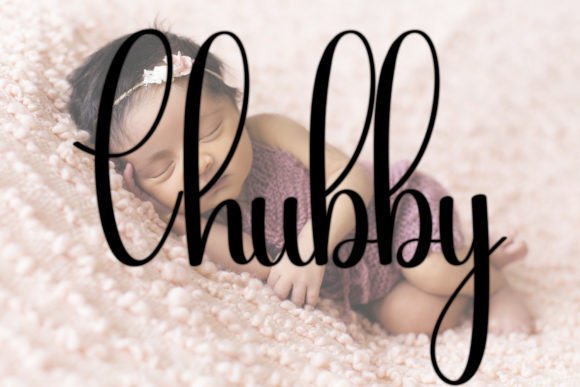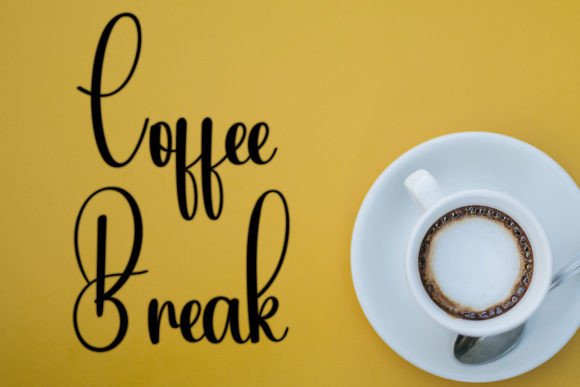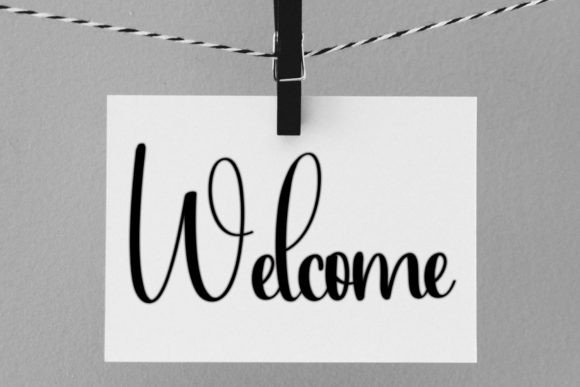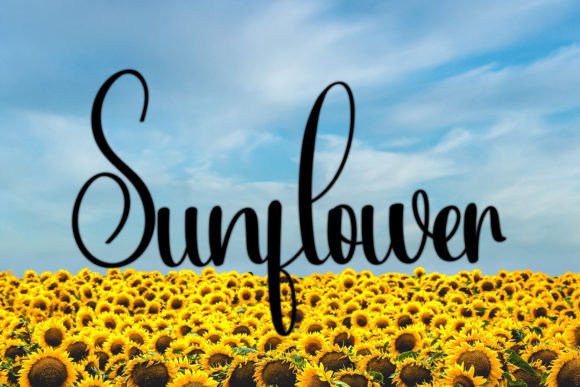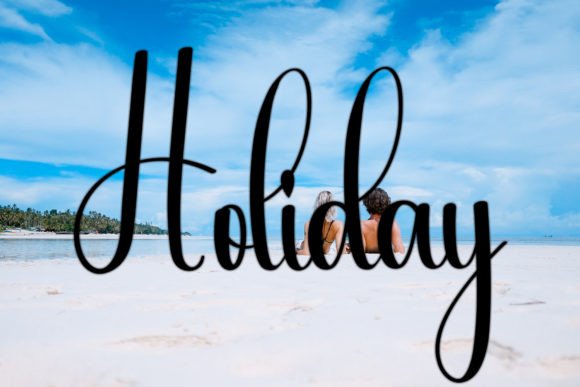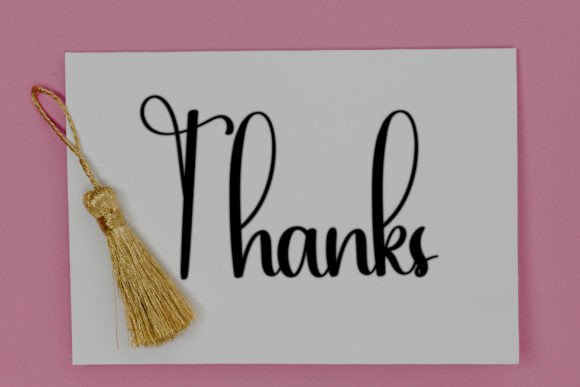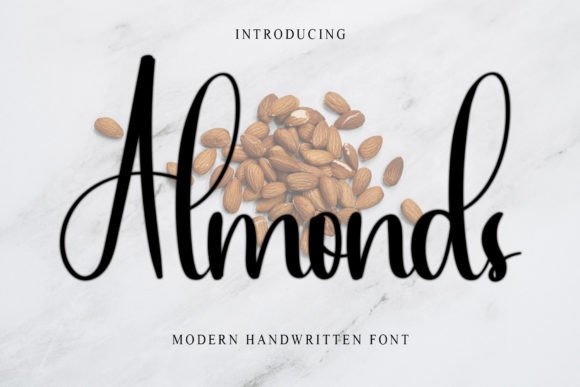
Introducing Almonds Font: Elevate Your Designs with Elegance
Are you on the hunt for a font that exudes sophistication and charm? Look no further than Almonds Font, a stunning handwritten typeface that is sure to capture your heart. With its elegant touch and timeless style, Almonds is the perfect addition to any design project. In this article, we’ll dive into the world of Almonds Font, exploring its unique features, and how you can harness its beauty to create breathtaking designs.
The Beauty of Almonds Font
Almonds Font is a meticulously crafted handwritten font that boasts an undeniable air of refinement. Its elegant strokes and curves lend a touch of sophistication to any text, making it an ideal choice for designers seeking to add a dash of luxury to their work. Whether you’re creating a logo, branding materials, or simply want to add a personal touch to your digital or print projects, Almonds Font is sure to impress.
Distinct and Timeless Style
One of the standout features of Almonds Font is its incredibly distinct and timeless style. Unlike other fonts that may come and go with fleeting trends, Almonds remains a classic choice that will never go out of fashion. Its unique character set and flowing script make it perfect for a wide range of design applications, from wedding invitations and packaging to social media graphics and blog posts.
Almonds Font is an incredibly versatile typeface that can be used in a multitude of design projects. Here are just a few ideas to get you started:
- Branding and Logo Design: Create a lasting impression with Almonds Font, perfect for crafting elegant logos and branding materials that exude sophistication.
- Wedding and Event Planning: Add a touch of romance to your wedding invitations, save-the-dates, and event materials with Almonds Font’s beautiful script.
- Packaging Design: Elevate your product packaging with Almonds Font, adding a touch of luxury and refinement to your products.
- Digital and Print Media: Use Almonds Font to create stunning social media graphics, blog posts, and print materials that are sure to capture attention.
Why Choose Almonds Font?
With so many fonts available, why choose Almonds Font? Here are just a few reasons why designers and crafters are falling in love with this beautiful typeface:
- Elegant and Refined: Almonds Font boasts an undeniable air of sophistication, making it perfect for designers seeking to add a touch of luxury to their work.
- Unique and Distinct: With its flowing script and unique character set, Almonds Font is sure to stand out from the crowd.
- Timeless Style: Unlike other fonts that may come and go with fleeting trends, Almonds Font remains a classic choice that will never go out of fashion.
- Easy to Use: Almonds Font is incredibly easy to use, making it perfect for designers of all skill levels.
Get Creative with Almonds Font
Ready to fall in love with Almonds Font? With its elegant touch and timeless style, this beautiful typeface is sure to inspire your next design project. Whether you’re a seasoned designer or a crafty DIY enthusiast, Almonds Font is the perfect addition to your creative toolkit.